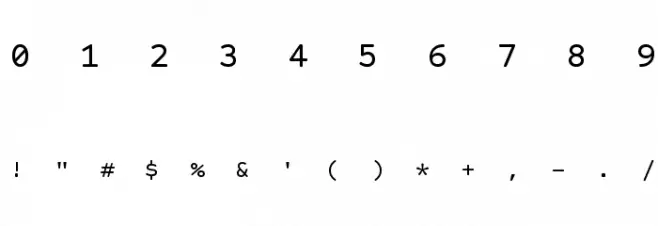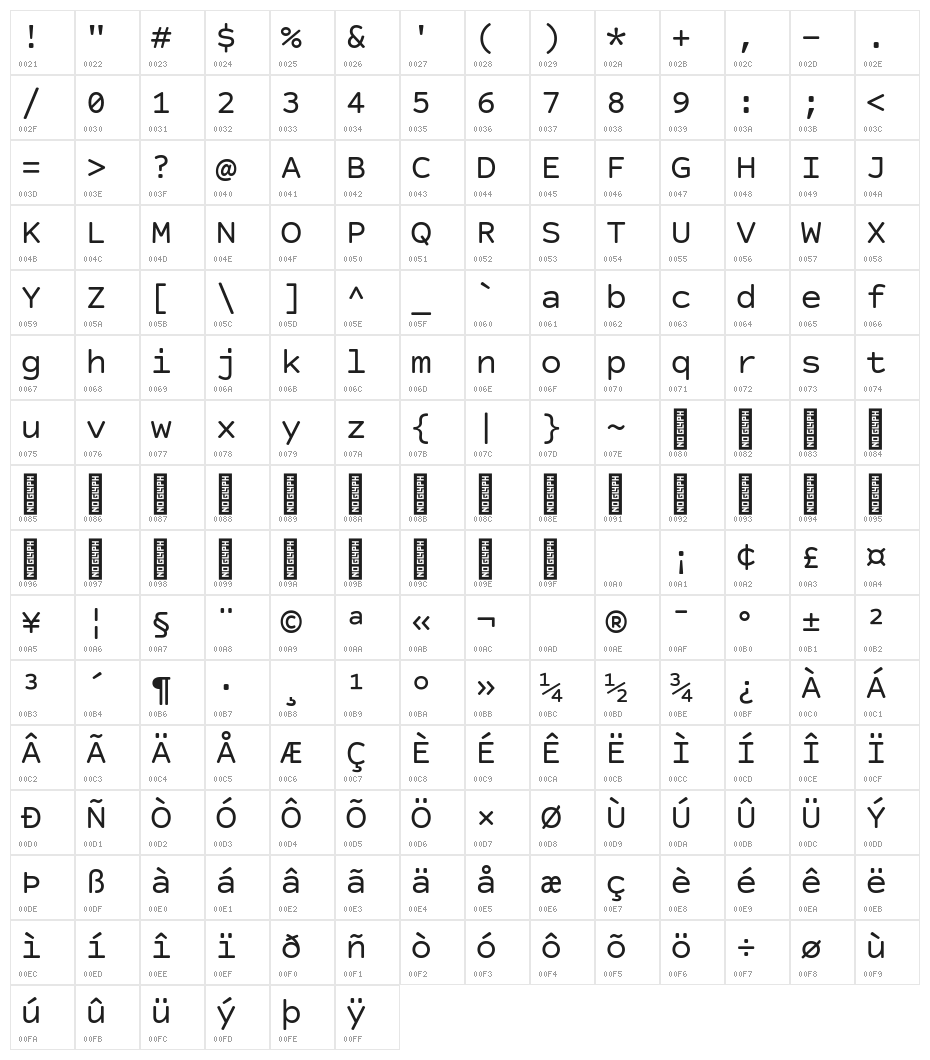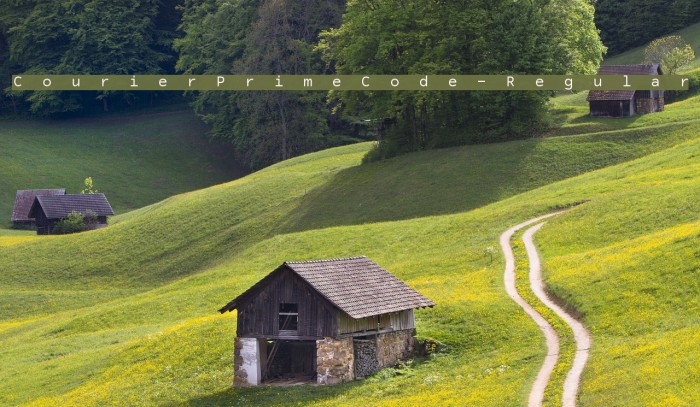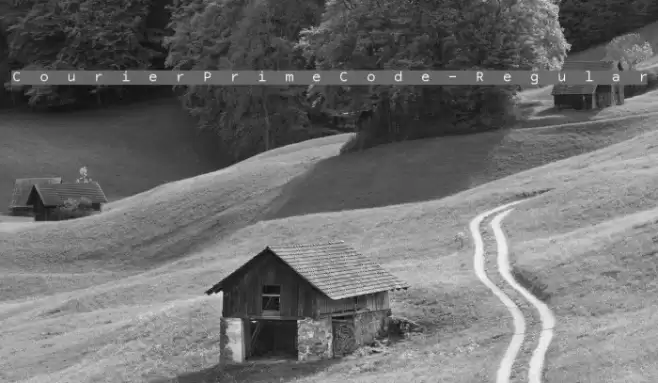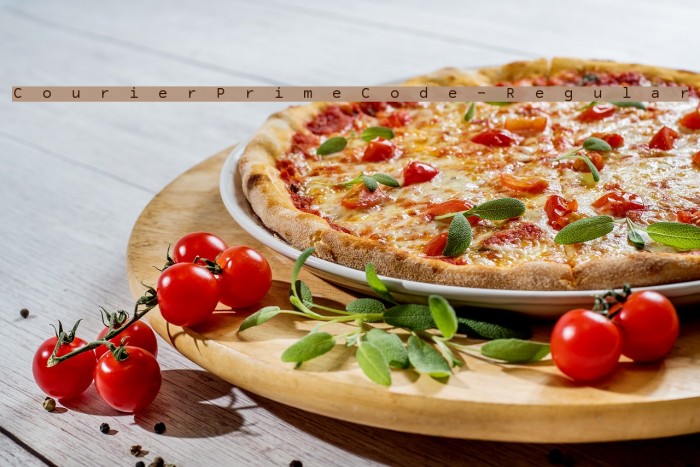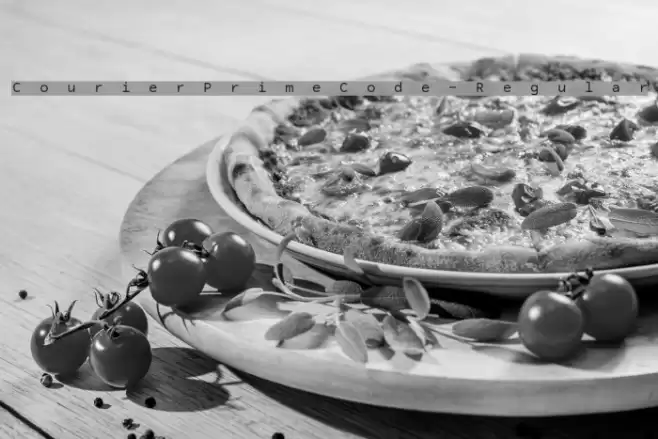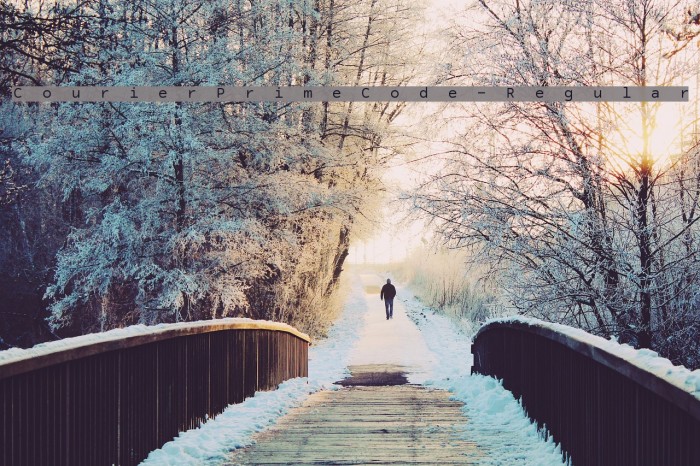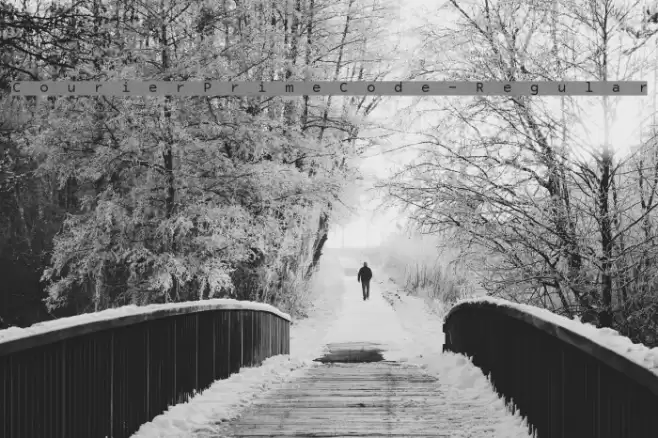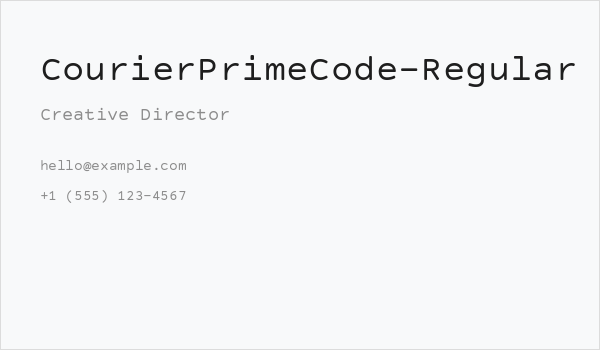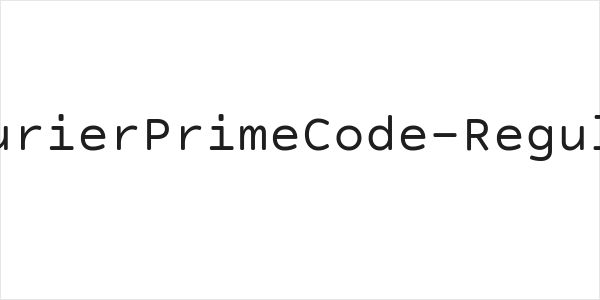
CourierPrimeCode-Regular Font
CourierPrimeCode-Regular Description
This typeface is a monospaced font that offers a clean and modern aesthetic, ideal for coding and technical documentation. Each character is designed with equal width, ensuring perfect alignment and readability in tabular formats or code editors. The font features a straightforward and utilitarian design, with clear distinctions between similar characters, such as '0' and 'O' or '1' and 'l'. Its simplicity and clarity make it a favorite among developers and writers who require precision and consistency in their text presentation.
| Use Case | Code editors, technical documentation, tabular data. |
| Proposed Projects | Ideal for use in code editors, technical documentation, and any project requiring precise alignment. |